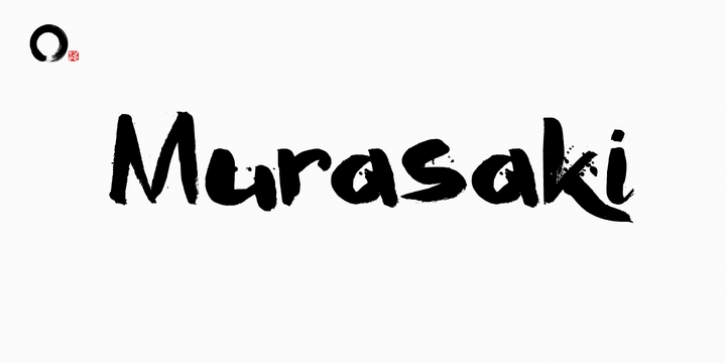
Murasaki (紫) means purple in Japanese. Murasaki font was made with a Japanese brush and ink. This multilingual font comes with double letter ligatures.